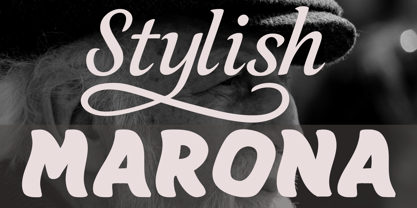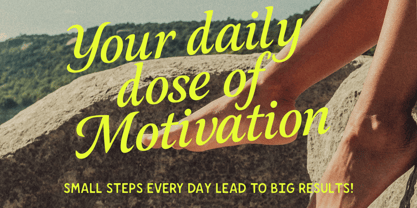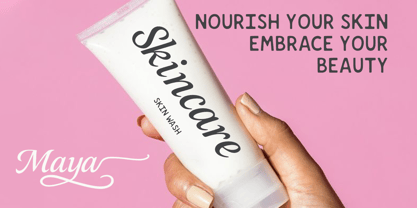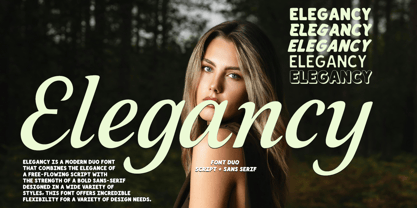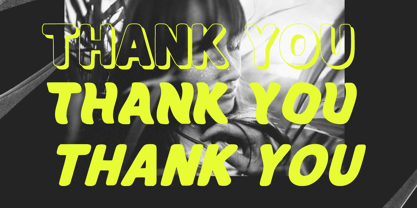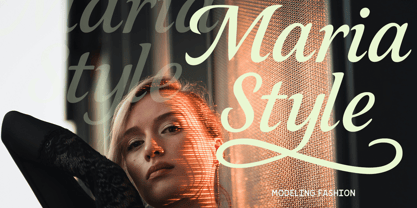
Elegancy script
by Cocodesign
The Elegancy script Font Family was designed by Muhammad Zaini and published by Cocodesign. Elegancy script contains 7 styles and family package options.
Elegancy – Modern Duo Font
Elegancy is a modern duo font that combines the elegance of a free-flowing script with the strength of a bold sans serif. Designed in a variety of styles, this font offers great flexibility for a variety of design needs.
This font consists of:
An elegant script with subtle strokes, ideal for wedding invitations, branding, logos, and fashion designs.
A bold, modern sans serif that provides strong contrast, suitable for headlines, editorials, and minimalist designs.
A wide variety of styles and weights makes it easy to customize design nuances, from luxurious and natural to bold, contemporary.
The two can be used separately or together to create visual harmony. It is perfect for wedding branding, skincare packaging, magazine editorials, posters, social media, and even premium logos.
✨ Key Features:
Duo Font (Script + Sans Serif)
Various styles & glyph alternatives
Modern, elegant, and versatile
Multilingual support
Suitable for branding, fashion, weddings, and luxury design
Elegancy strikes the perfect balance between beauty and professionalism, making it an ideal choice for creative projects across a wide range of fields.